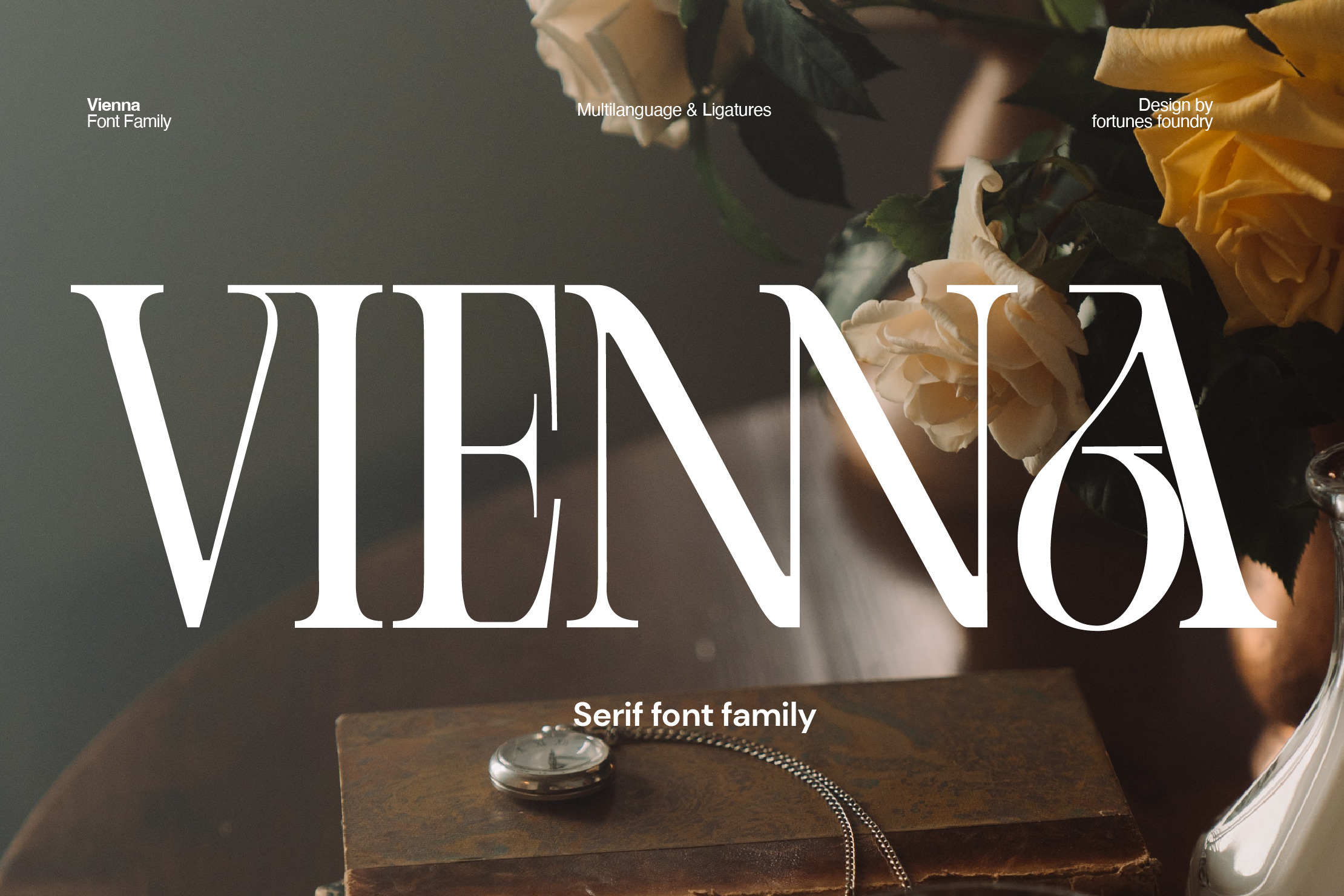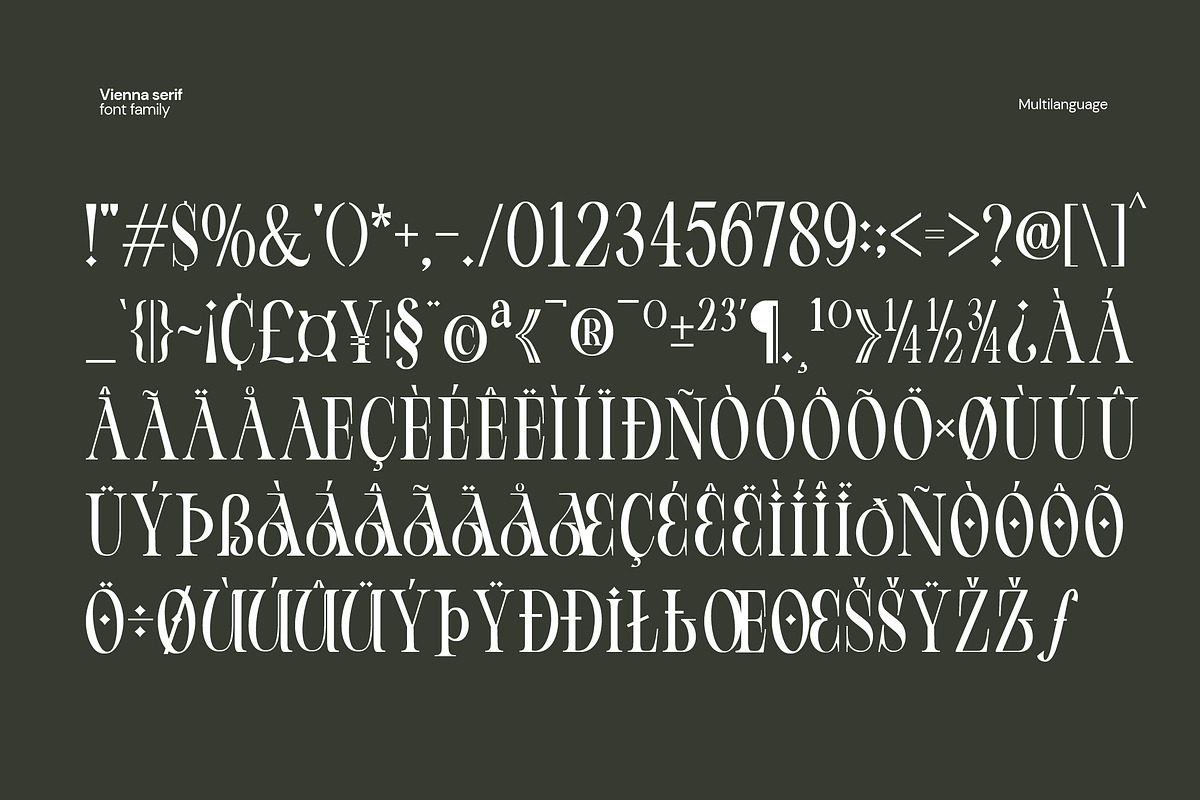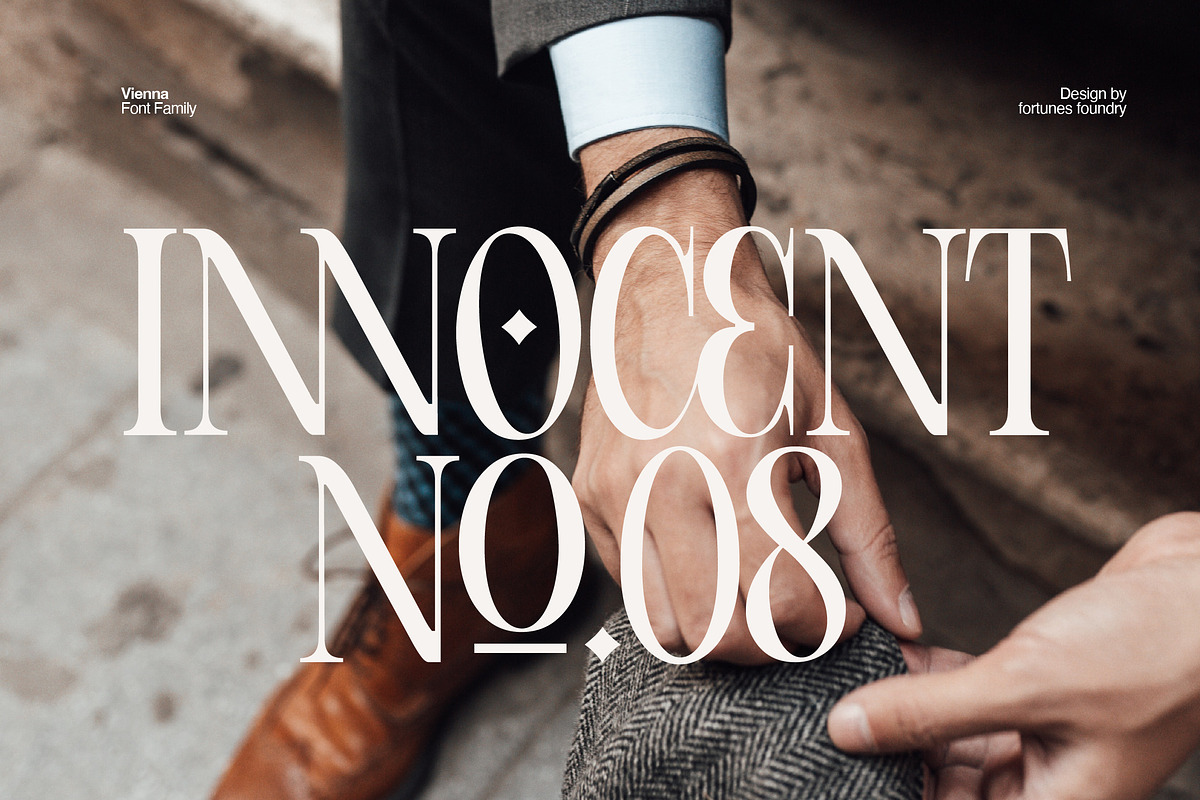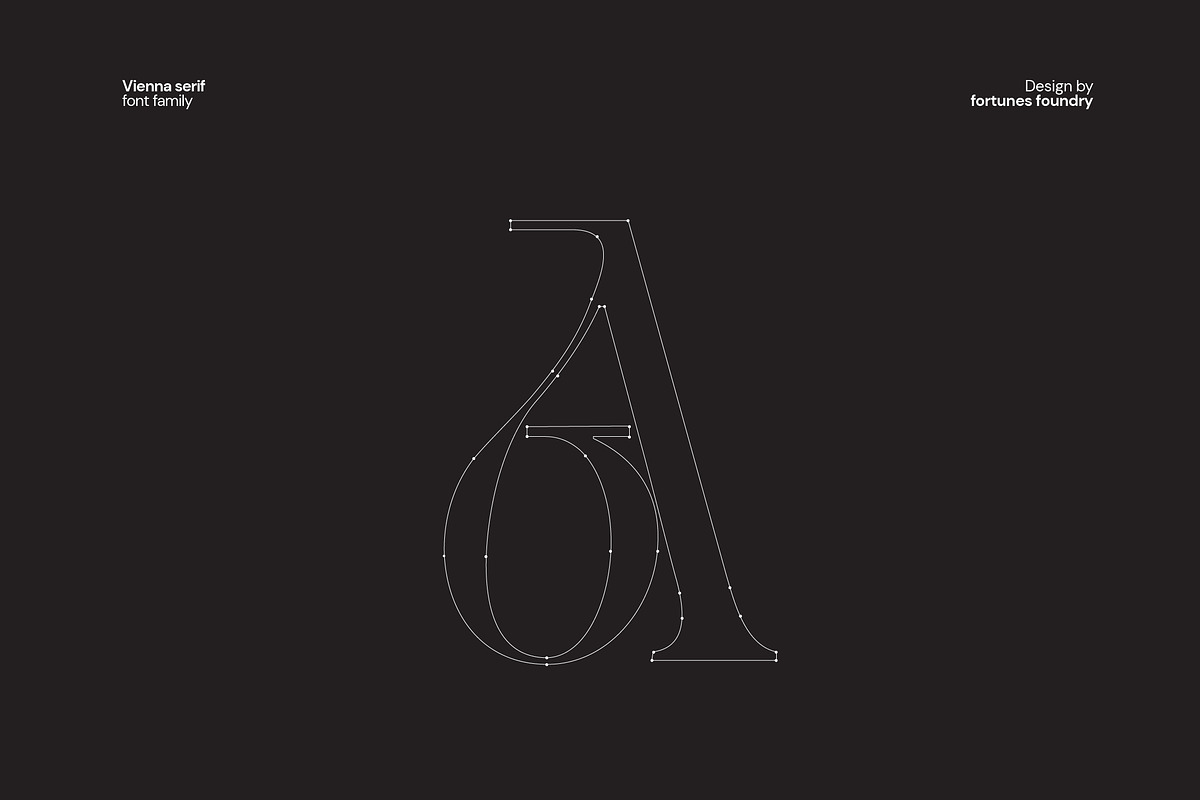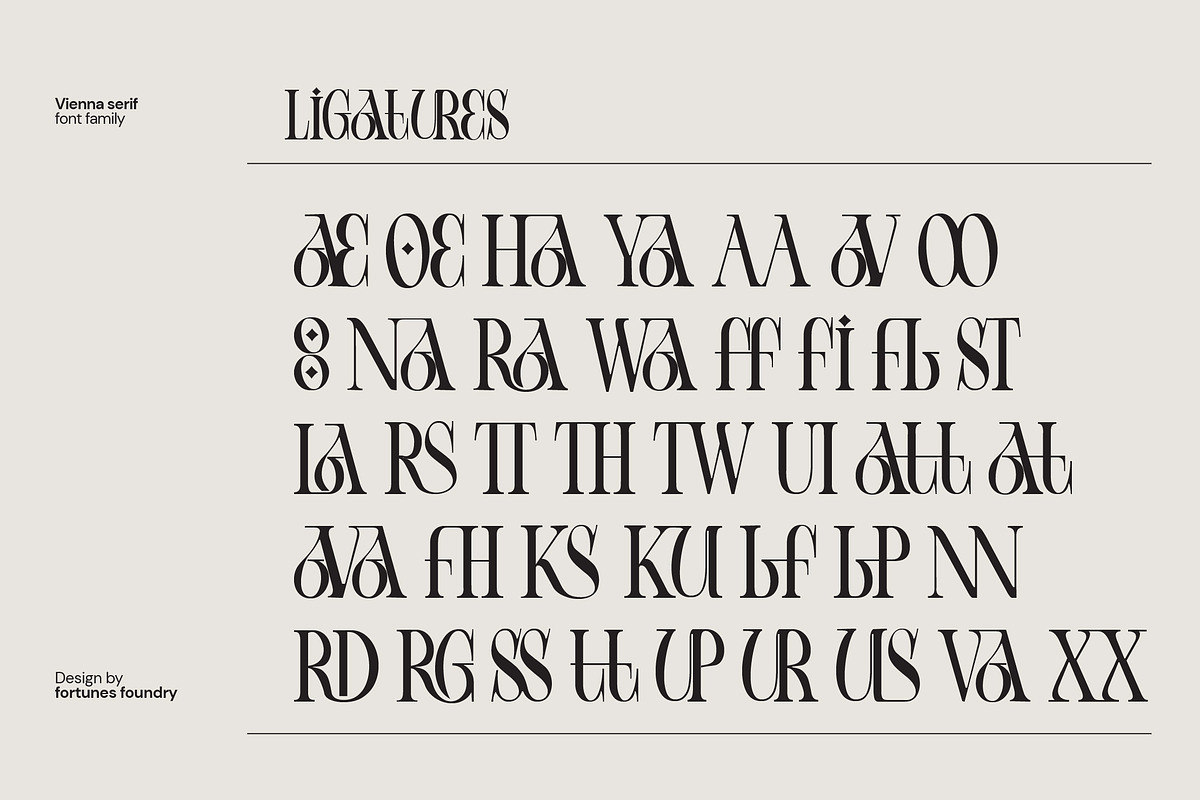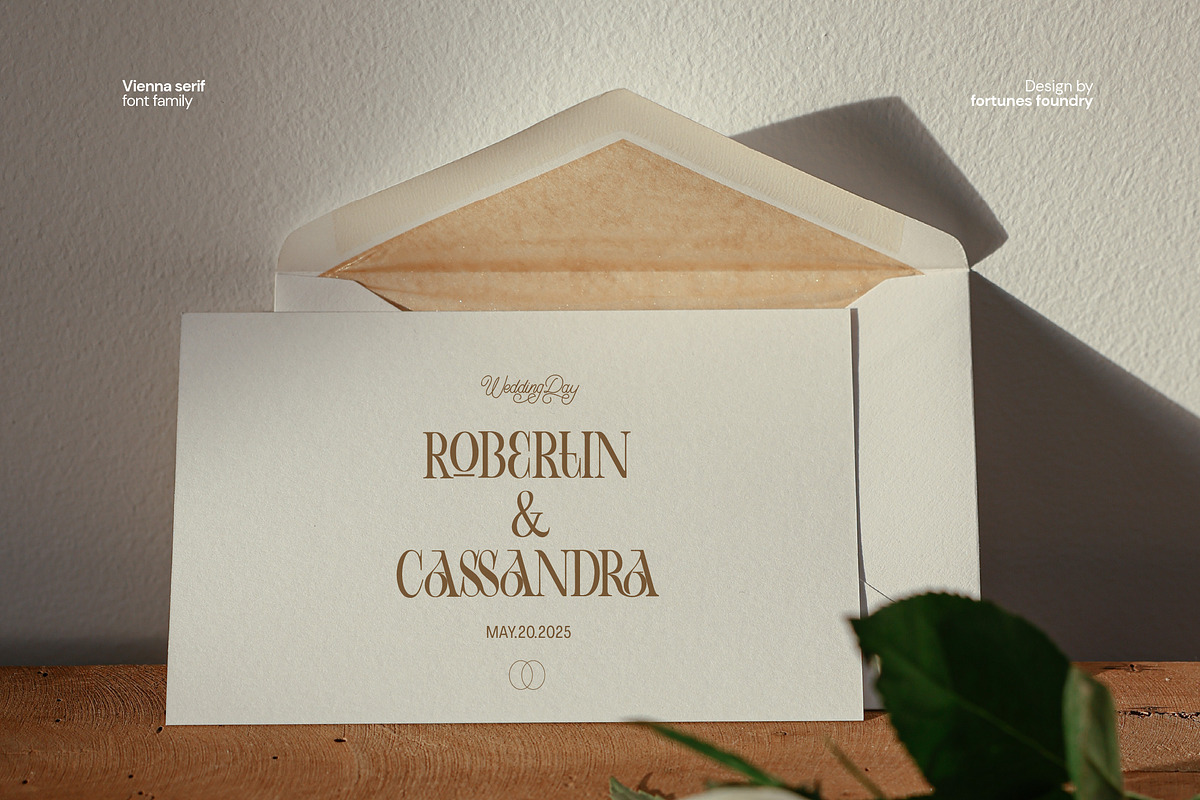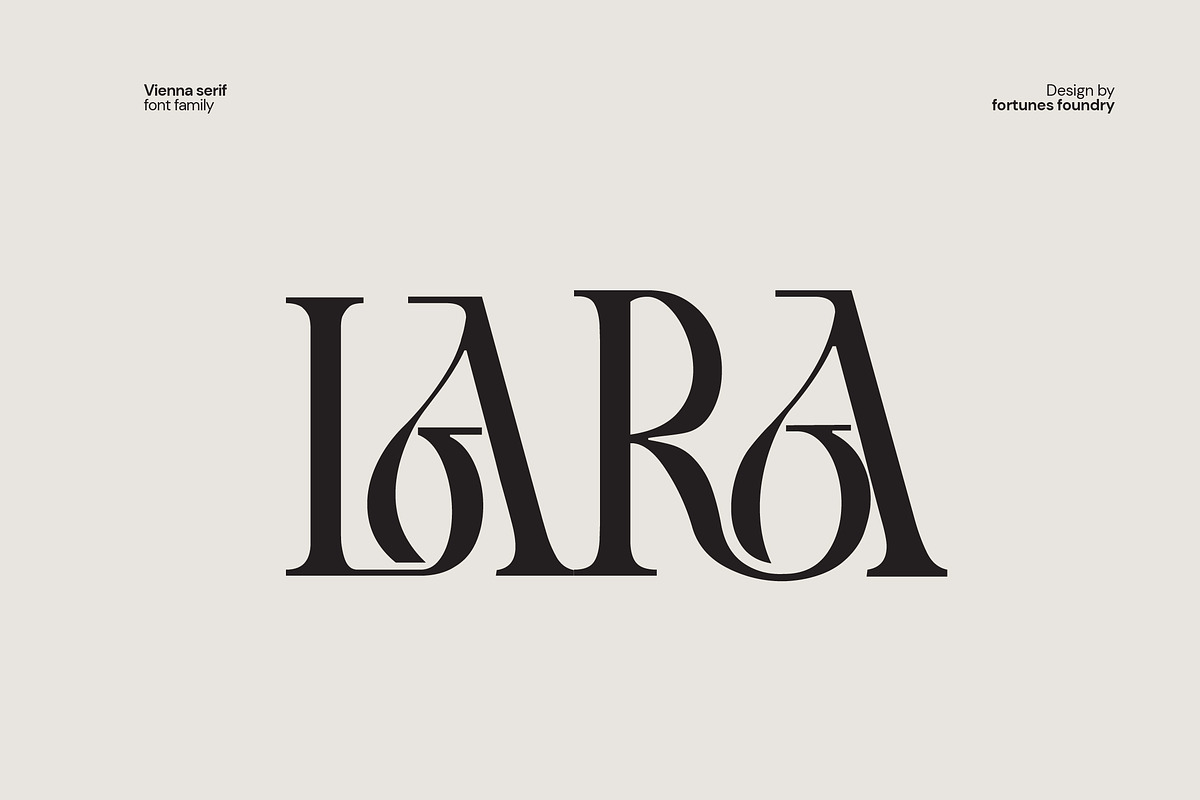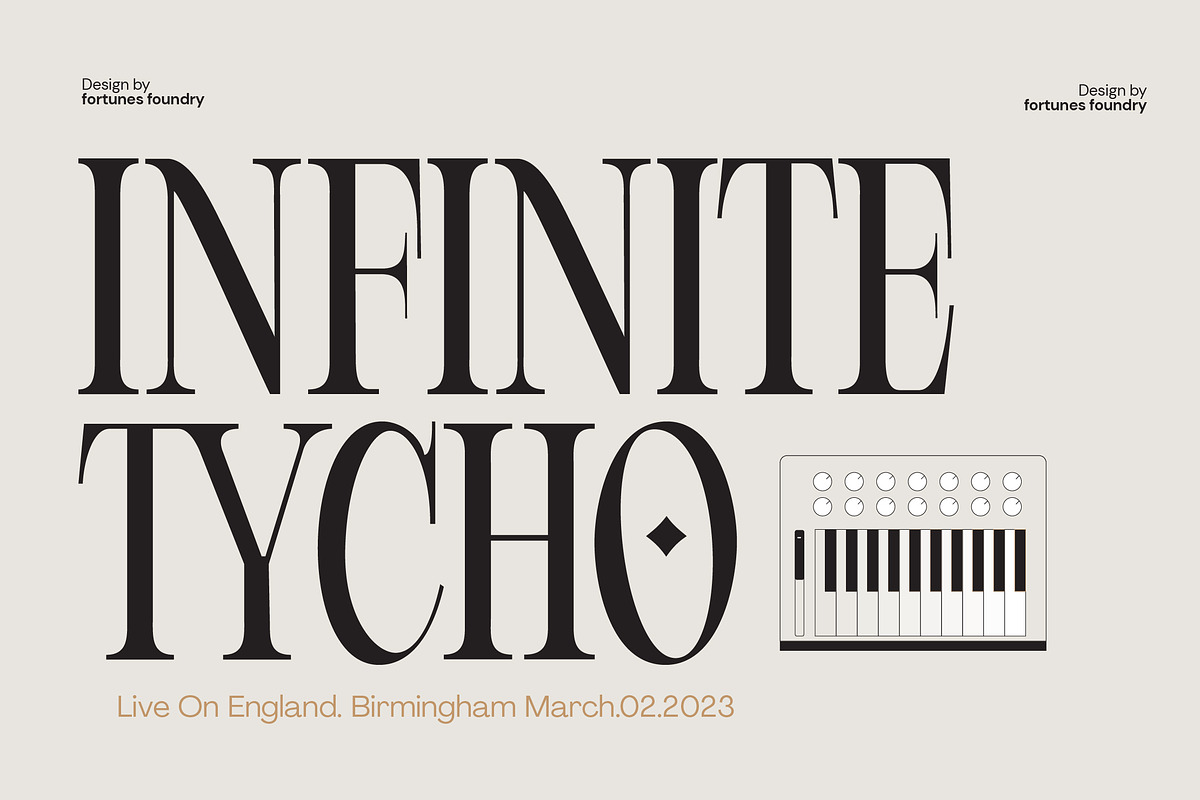
Vienna Modern Serif Font
Vienna is Modern Serif is a font style that blends traditional and modern design elements to create a distinct, stylish look. This typeface is characterized by serifs, or small lines added to the end of a stroke, that give it a classic and sophisticated feel.
The font is often used in high-end fashion magazines and advertisements to evoke a sense of luxury and elegance. Fashion serif typeface is versatile and can be used for various purposes, from headings and titles to body text. Overall, this typeface is a perfect choice for designers looking to create a high-end, fashionable aesthetic.
feature
- Vienna Regular
- Vienna Oblique
- Vienna semi bold
- Vienna Semi bold oblique
- Multilanguage Latin
- Ligatures : AA, Ha, La, OO, RS, TT, Th, Tw, UI, att, ava, ae, av, ff, fh, fi, fl, ks, ku, lf, lp, na, nn, oe, oo, ra, rd, rg, ss, st, tt, up, ur, us, va, wa, xxa ya, at